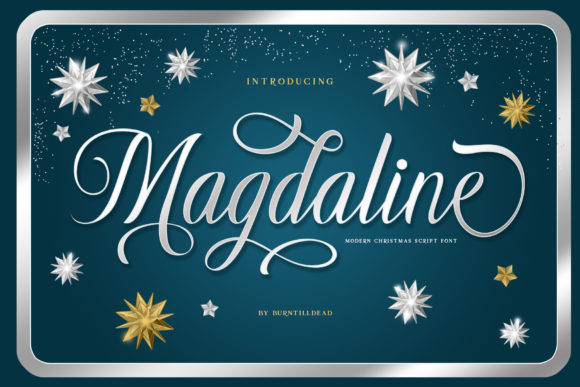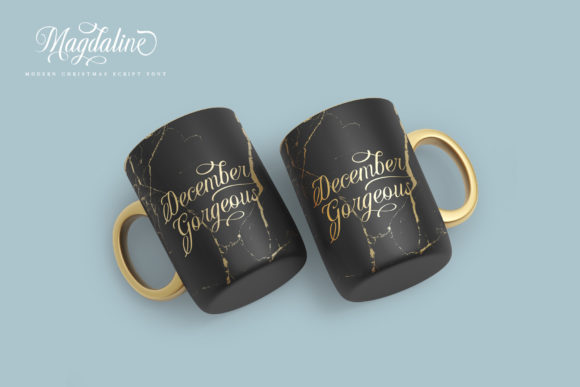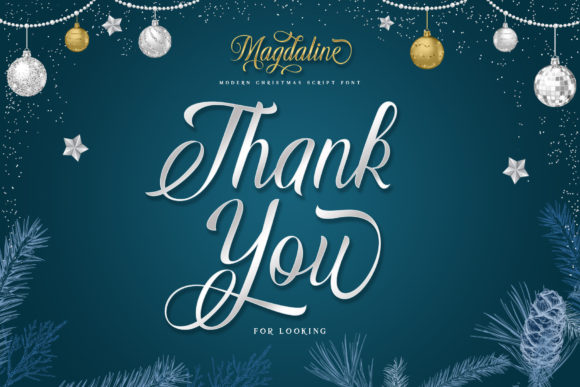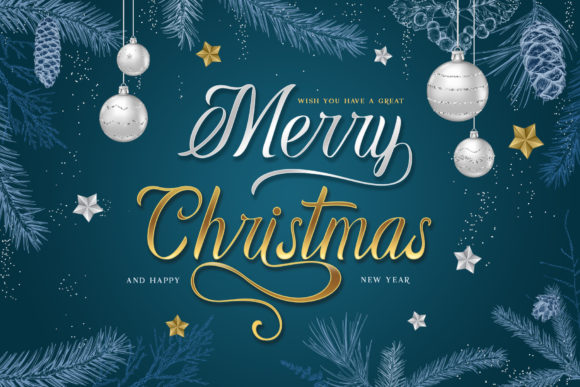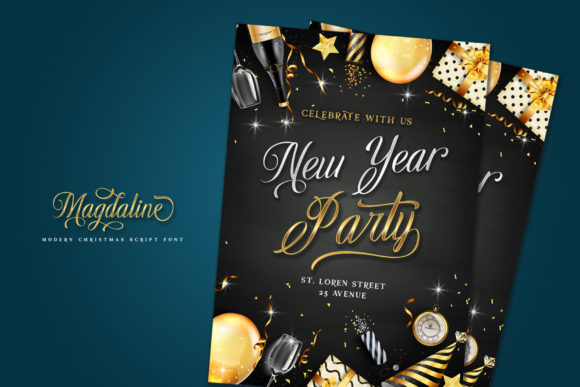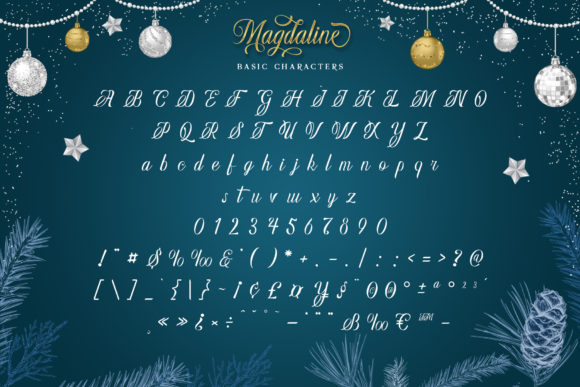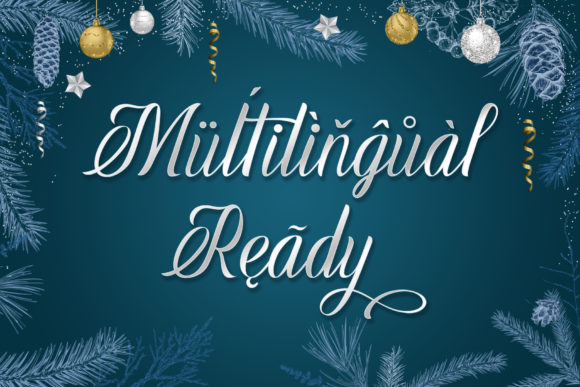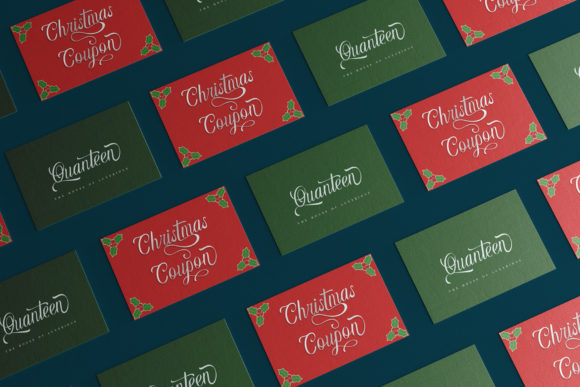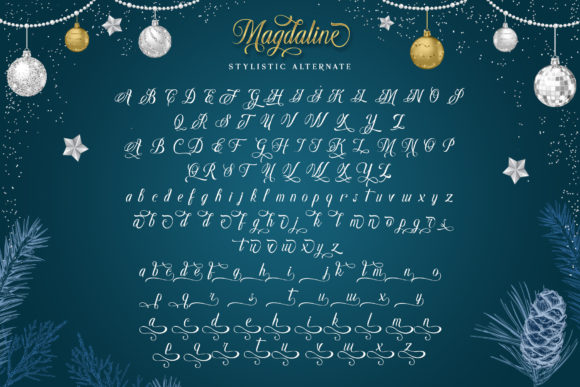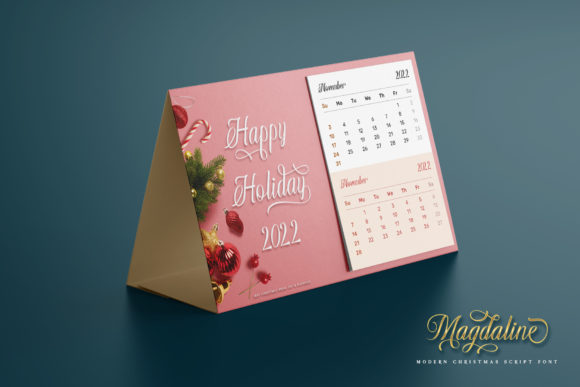
Magdaline Font
About Magdaline Font
Magdaline is a beautiful and refined script font. It has a classy, elegant and modern look that can be used for logos, branding, invitations, stationery, wedding designs, social media posts, and much more! This font is PUA encoded which means you can access all of the amazing glyphs and ligatures with ease!